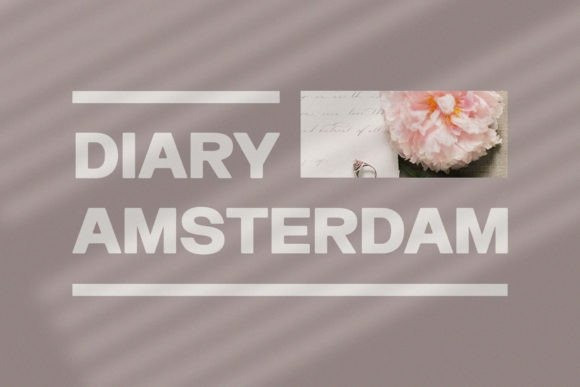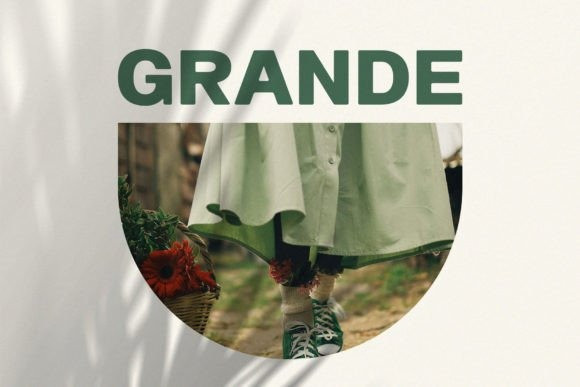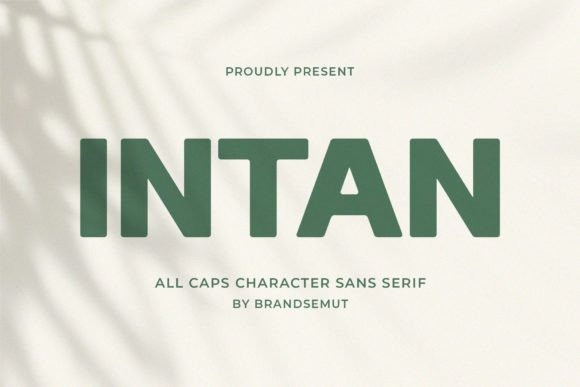
Intan Font
Intan Font is a modern and classy sans serif font. Add this beautiful sans serif font to each of your creative ideas and notice how it makes them stand out!